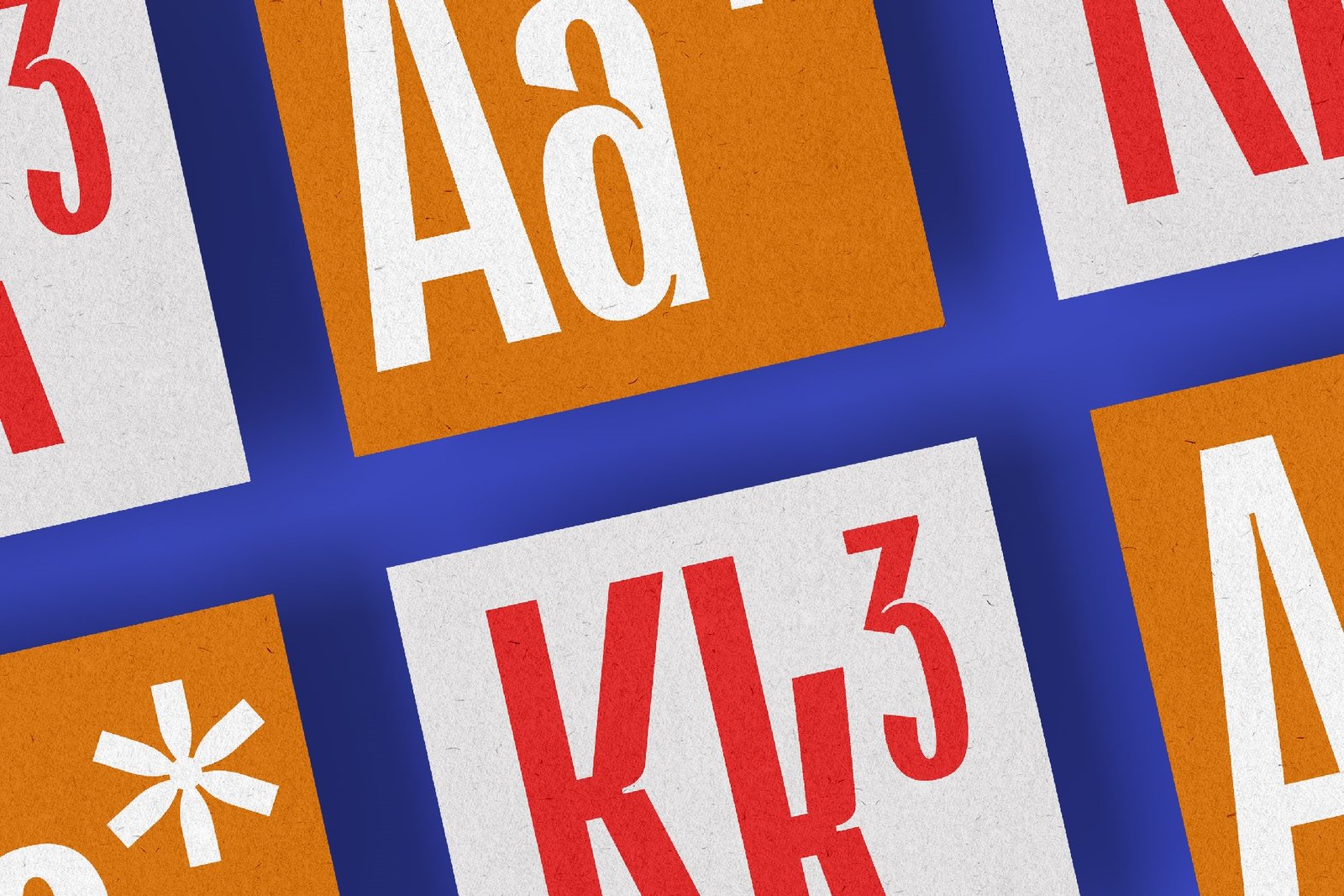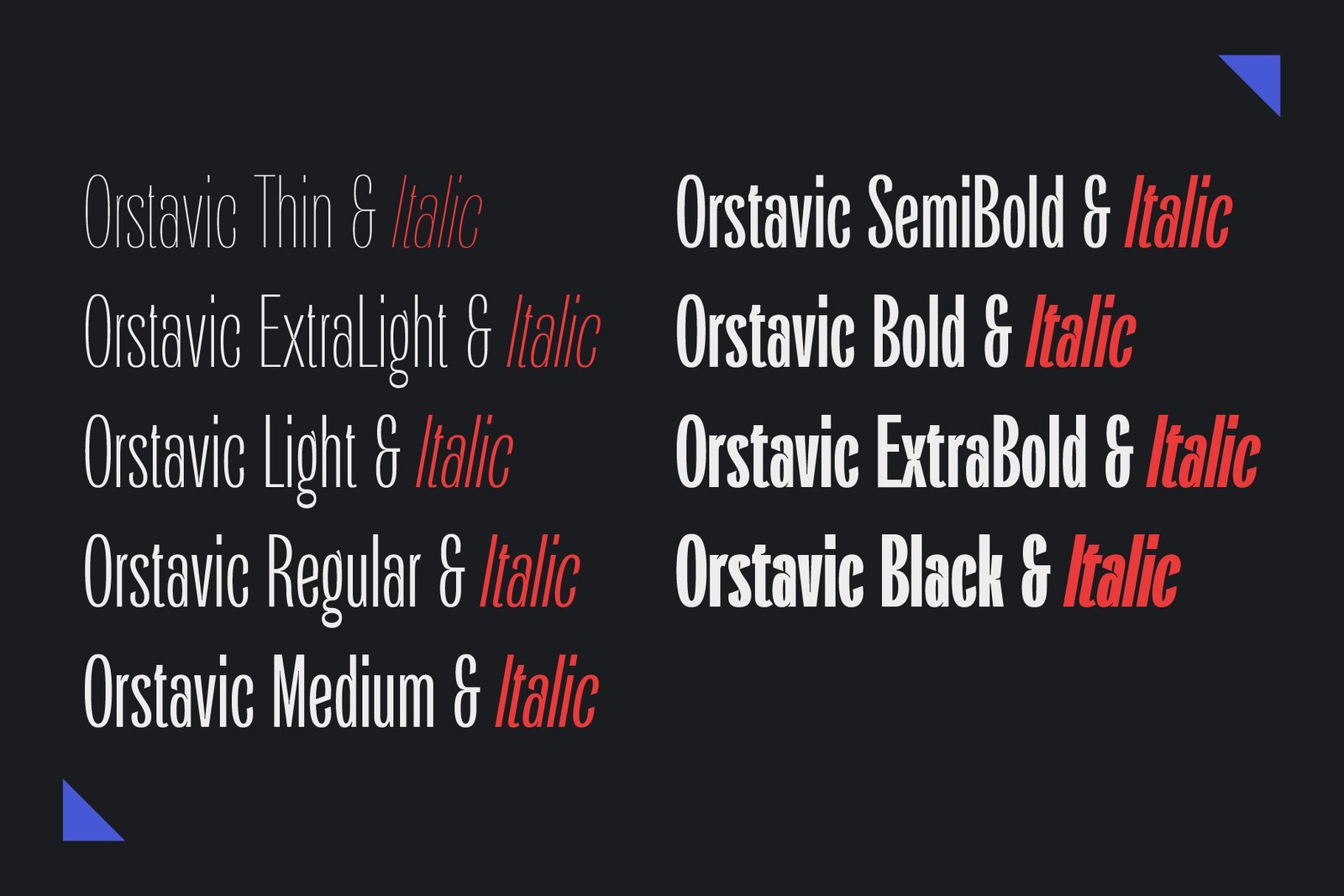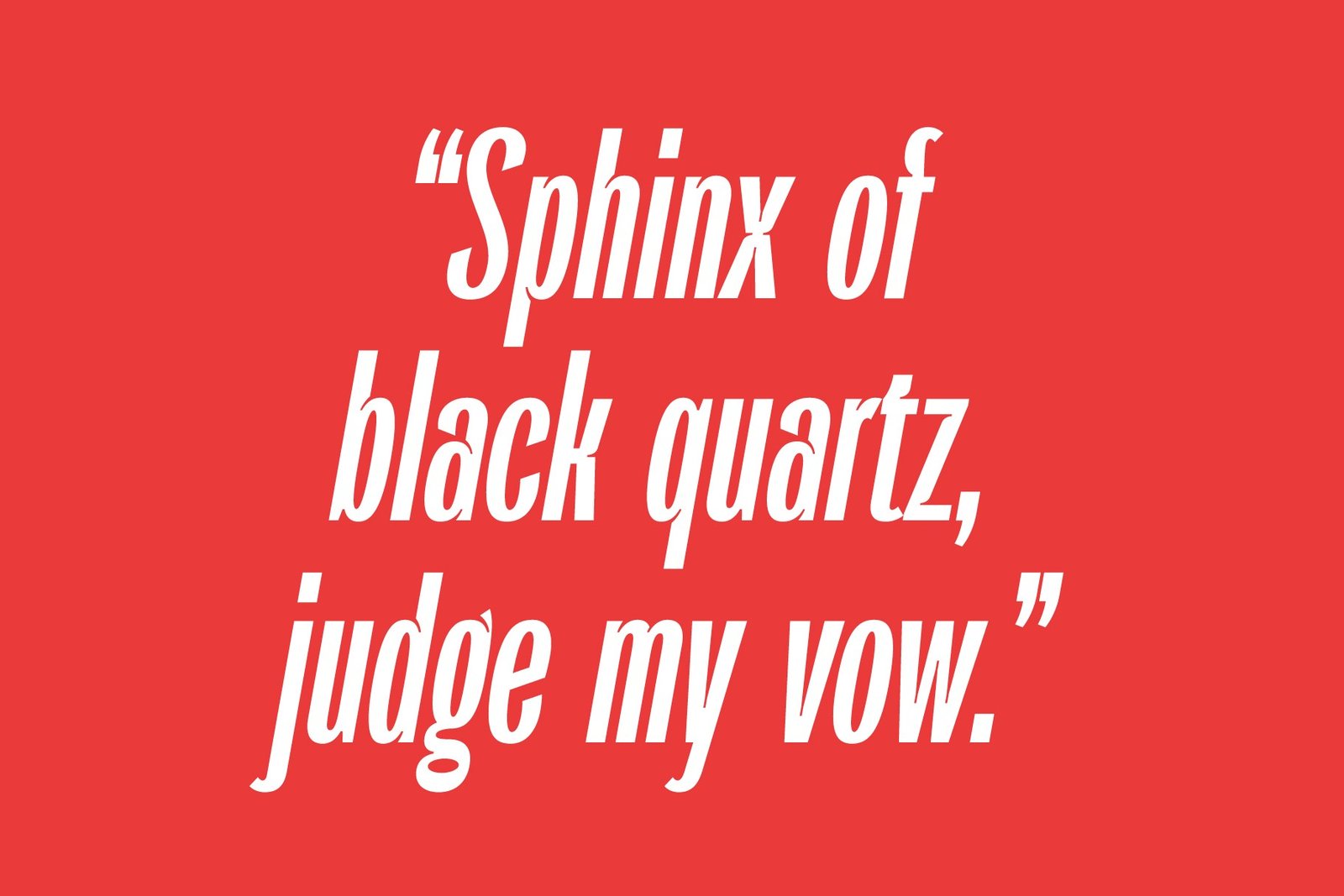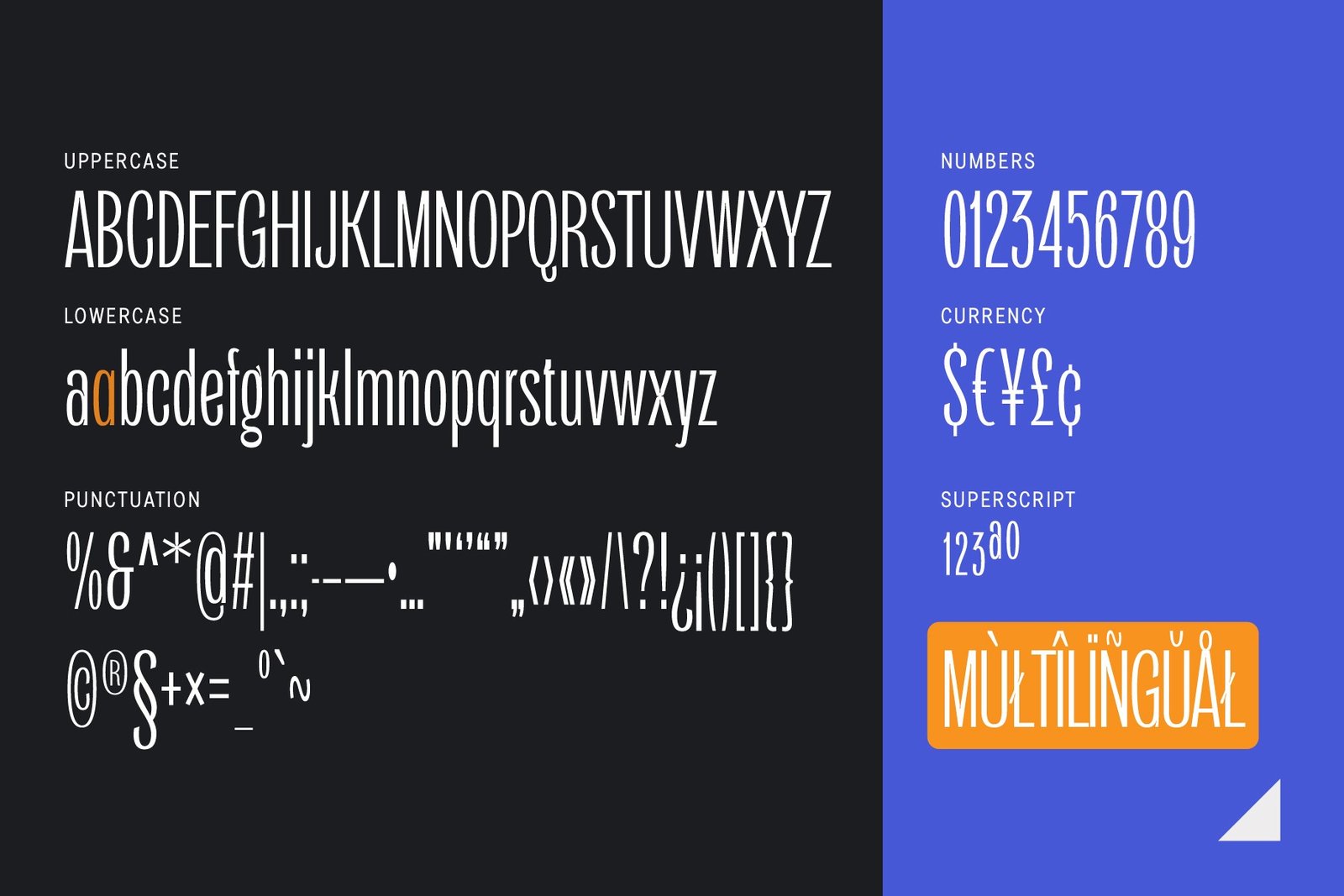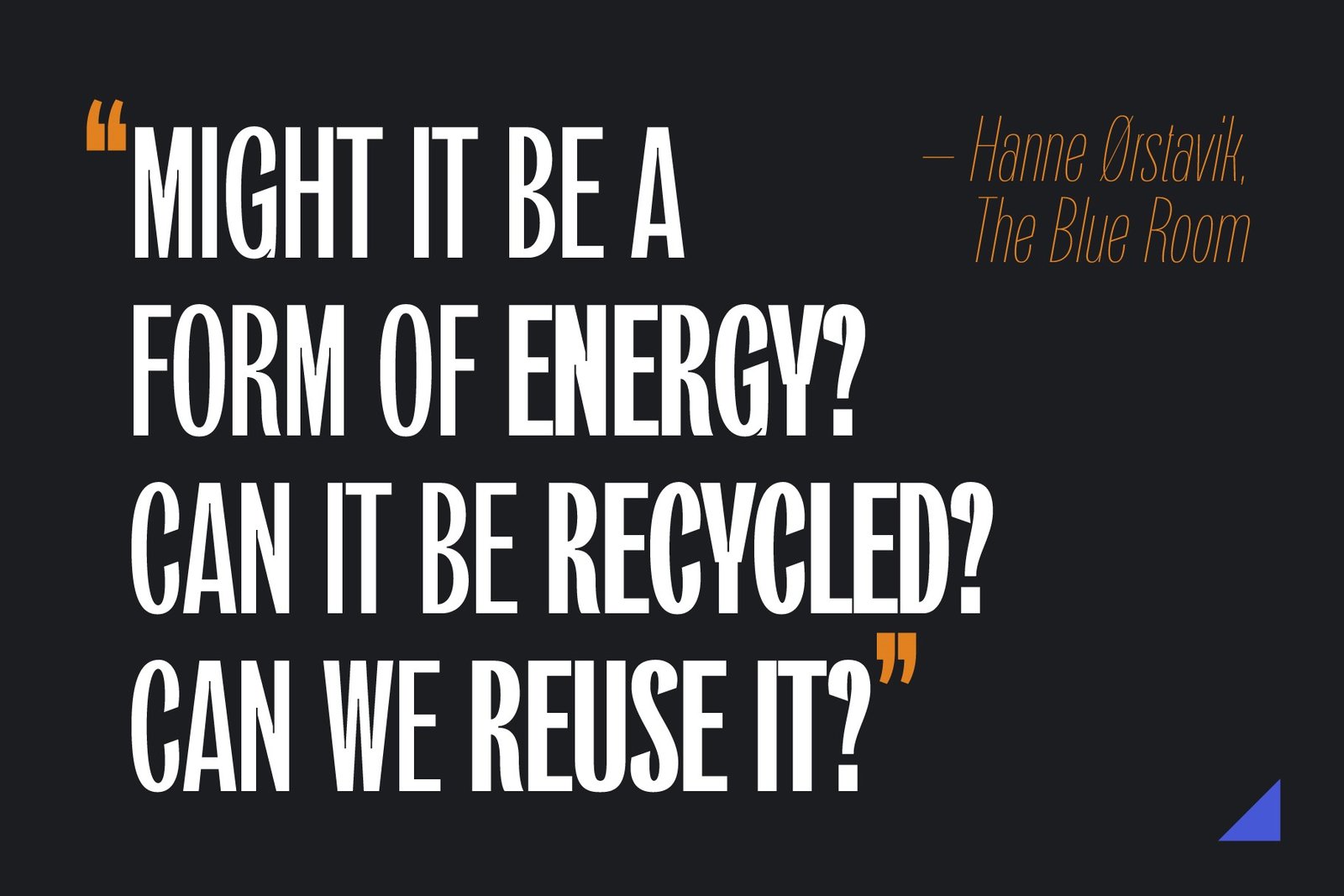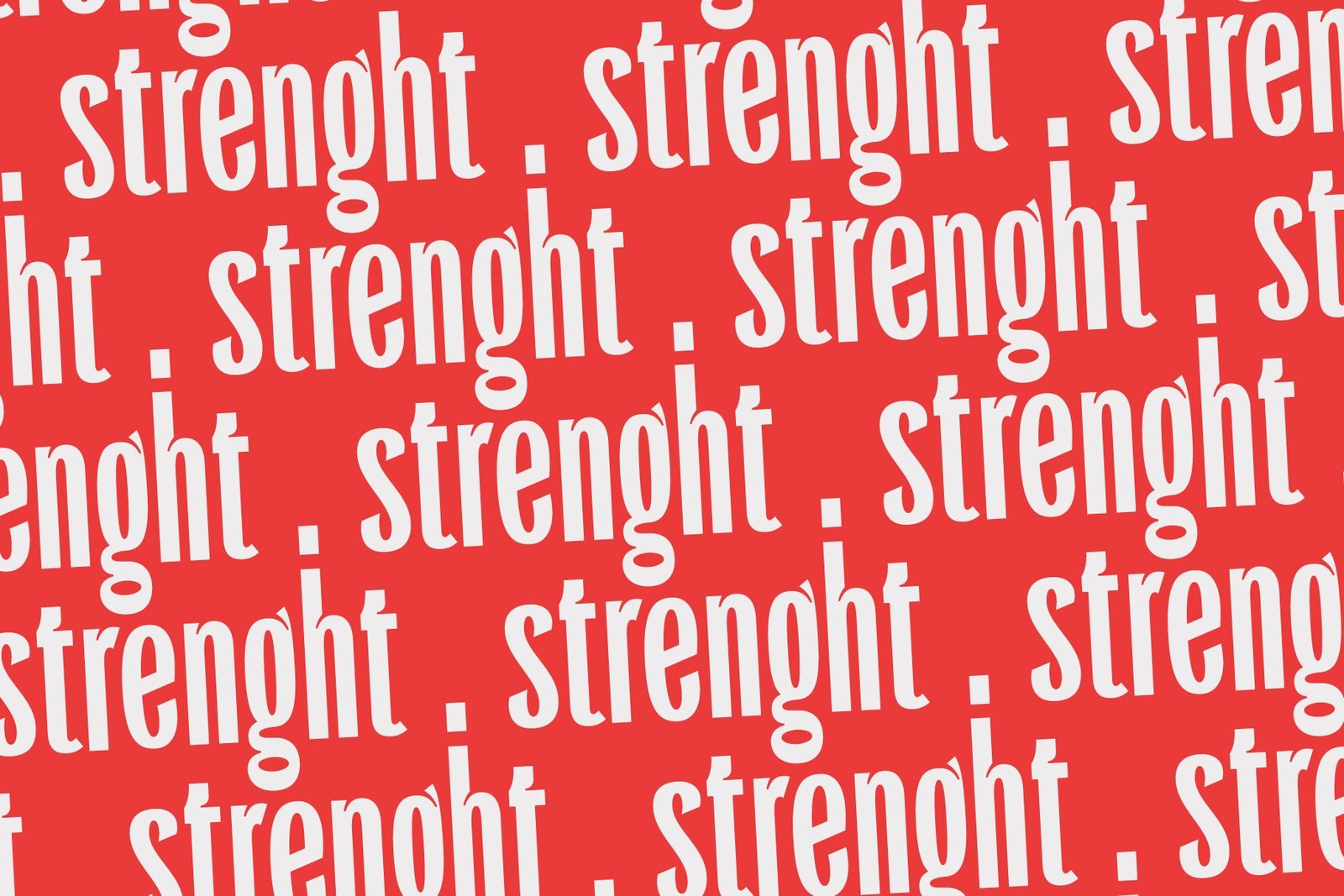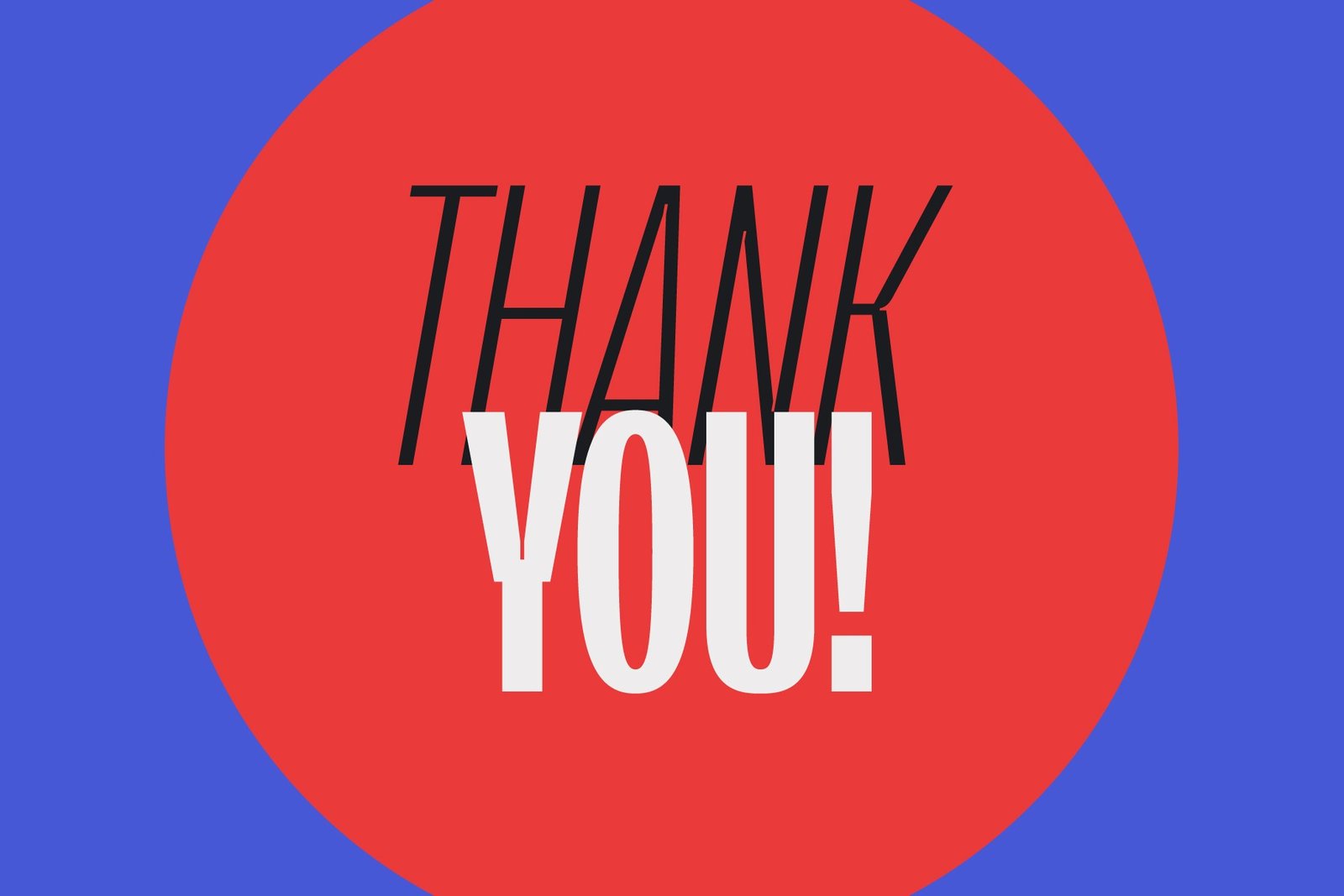
A bold, modern sans-serif font named Orstavic is showcased with the words "INTRODUCING! A typeface crafted with love" and "INKTRAPPED & COMPRESSED." The design features clean lines and a strong, contemporary feel, with details about 9 weights and 18 styles.
A close-up view of a few characters from the Orstavic font, including the letters "Aa" and "Kk" and a number "3." The letters are displayed on orange and white squares with a blue background.
A list of the various weights and styles of the Orstavic font, showing "Thin," "ExtraLight," "Regular," "Medium," "SemiBold," "ExtraBold," and "Black," each with a matching italic version.
A red background with a quote in white italicized text: "Sphinx of black quartz, judge my vow." The text is a pangram, showcasing the font's appearance in a large, headline format.
The full character set for the Orstavic font, showing uppercase and lowercase letters, numbers, punctuation, currency symbols, and multilingual characters.
A bold, modern quote in white text on a dark background: "MIGHT IT BE A FORM OF ENERGY? CAN IT BE RECYCLED? CAN WE REUSE IT?" The quote is attributed to Hanne Ørstavik.
The word "strength" is repeated in a pattern across a red background. The letters are slightly distorted, showcasing the inktrapped feature of the font.
A blue background with a large red circle in the center. Inside the circle, the words "THANK YOU!" are written in a mix of thin and bold versions of the Orstavic font.